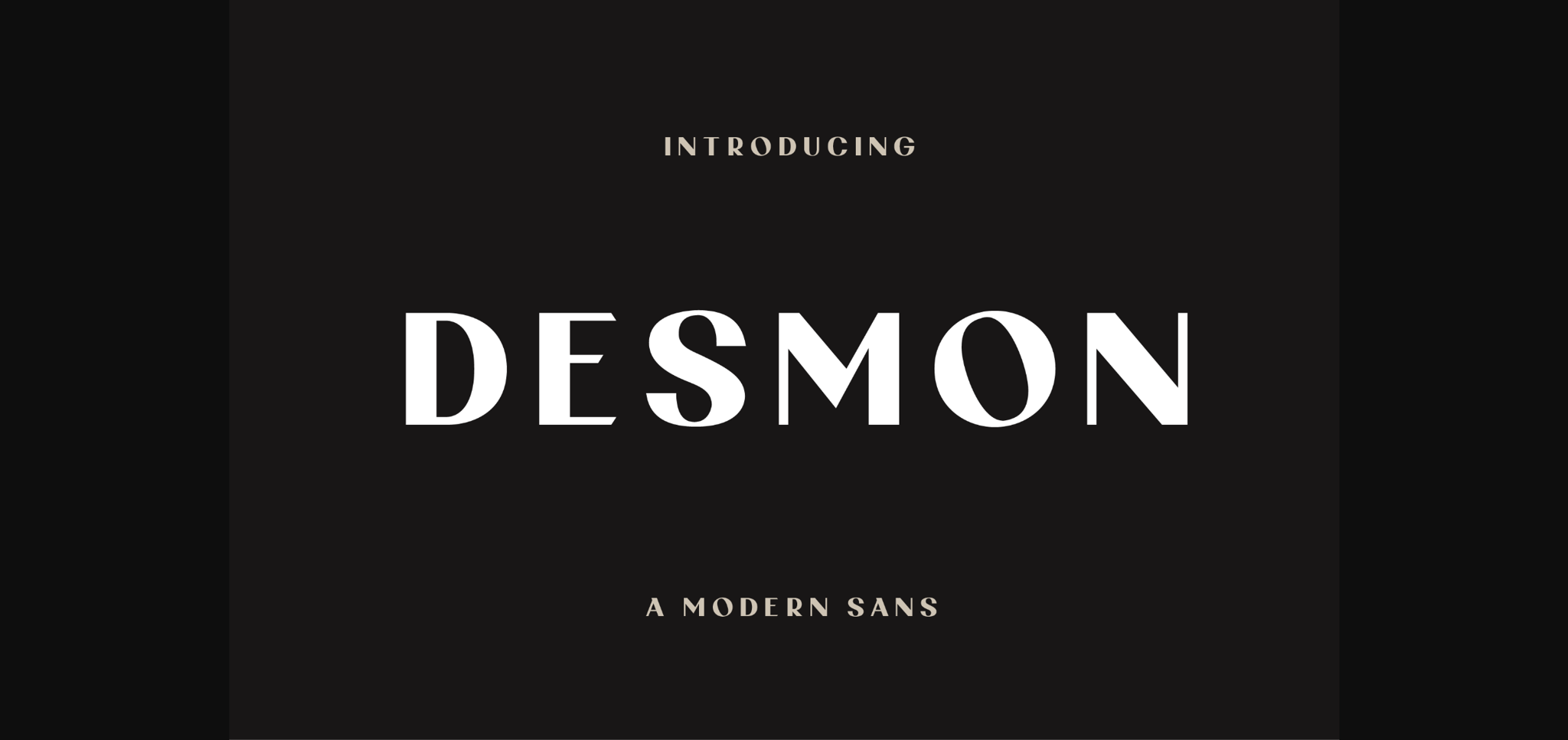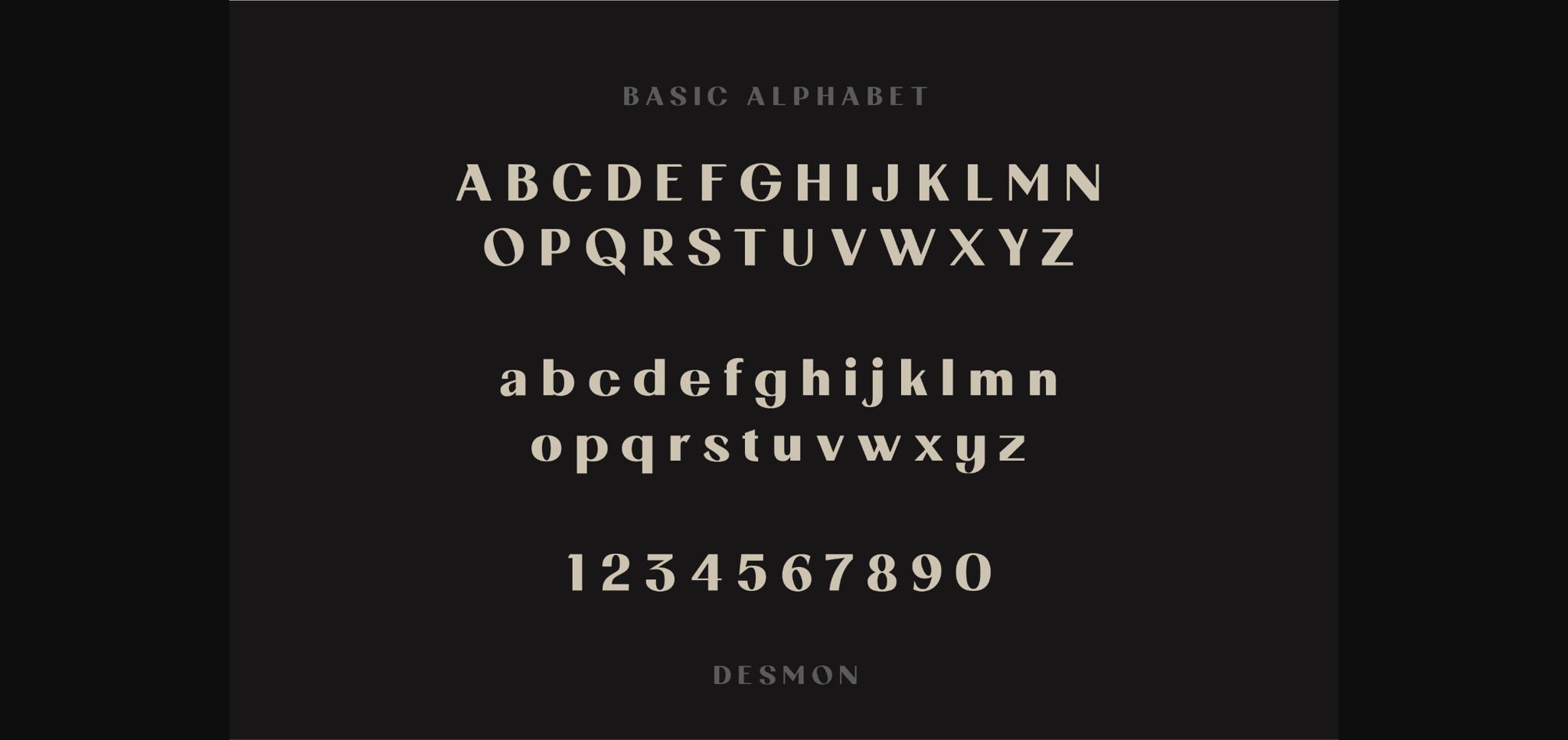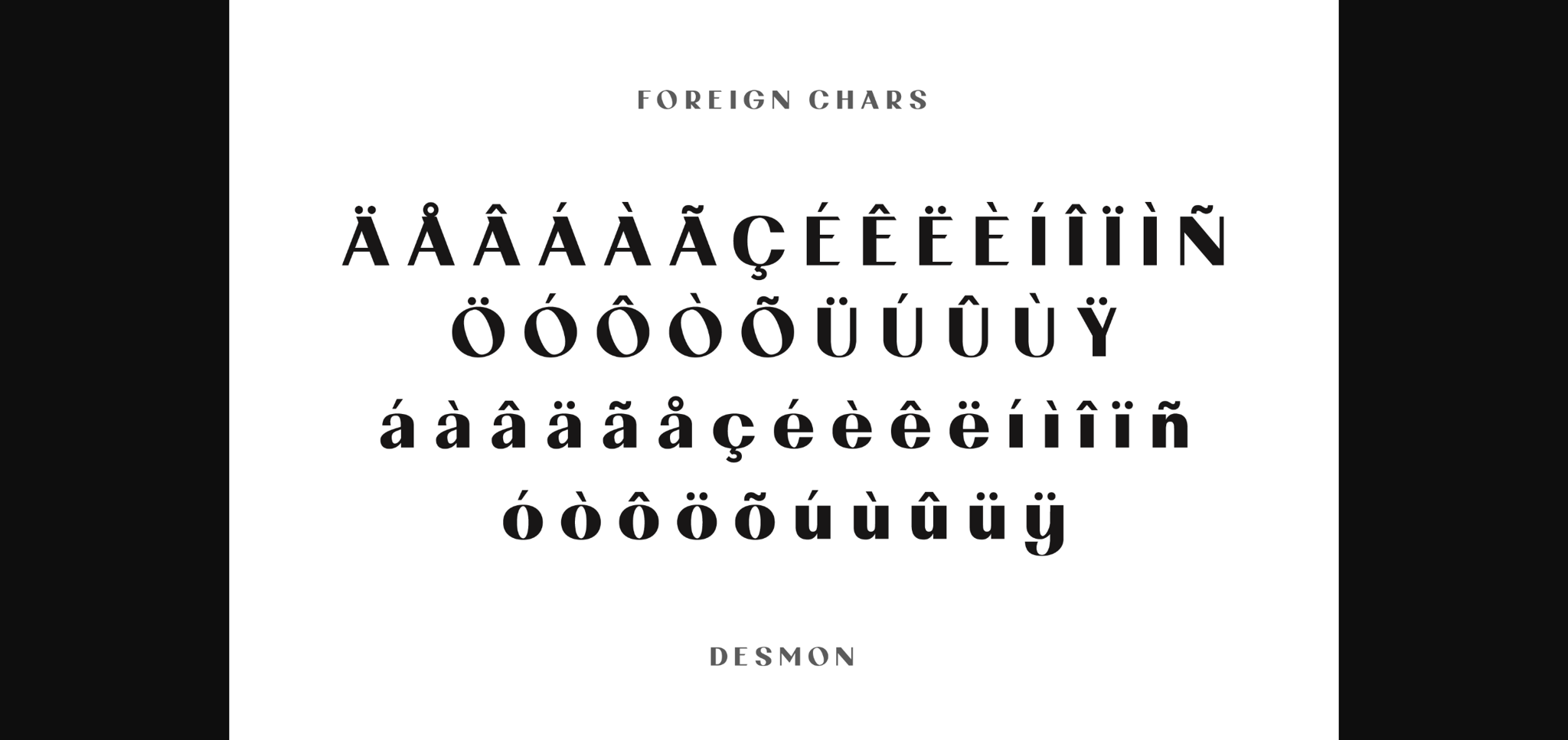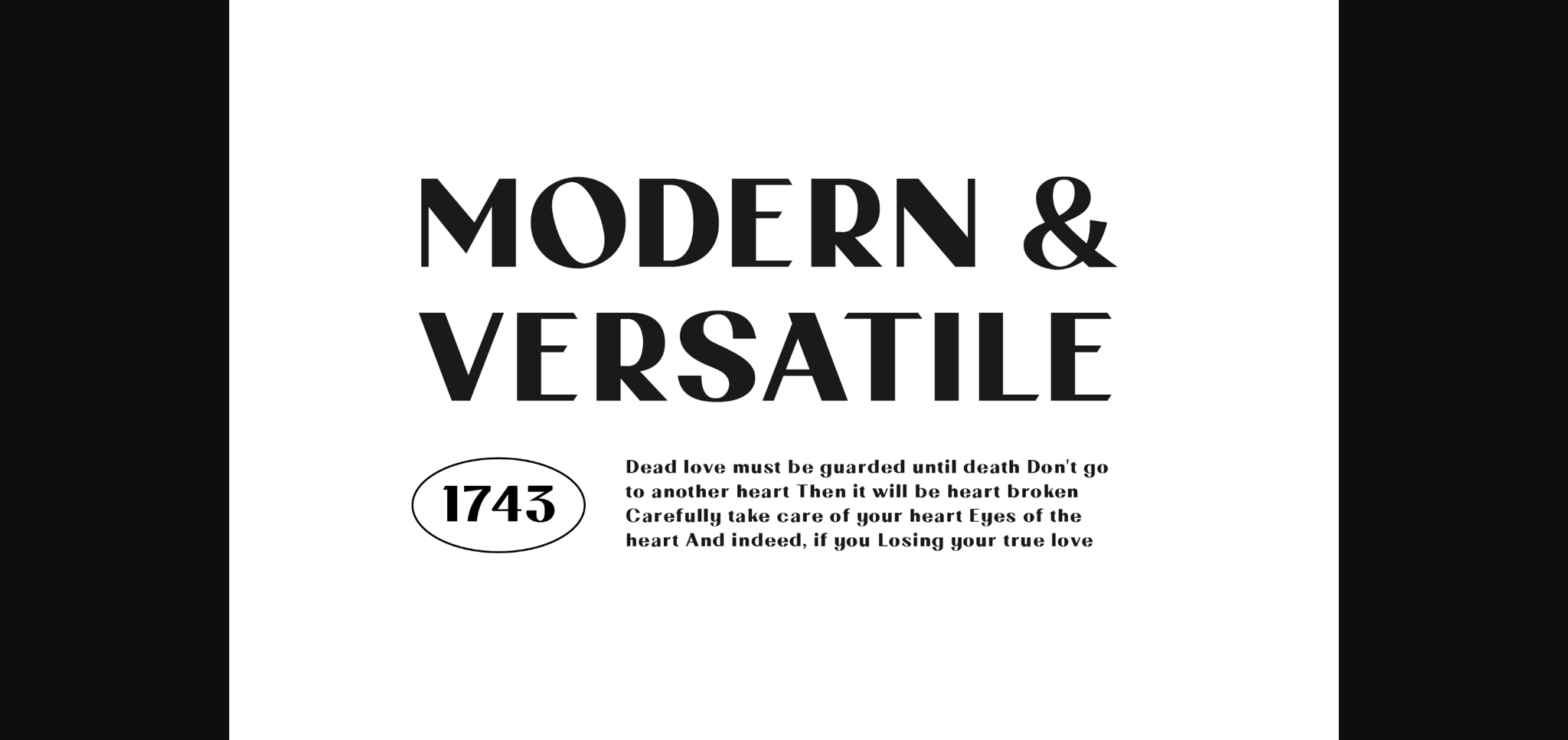
About Desmon Font
Desmon is a modern and versatile sans serif font. No matter the topic, this font will be an incredible asset to your fonts’ library, as it has the potential to elevate any creation.